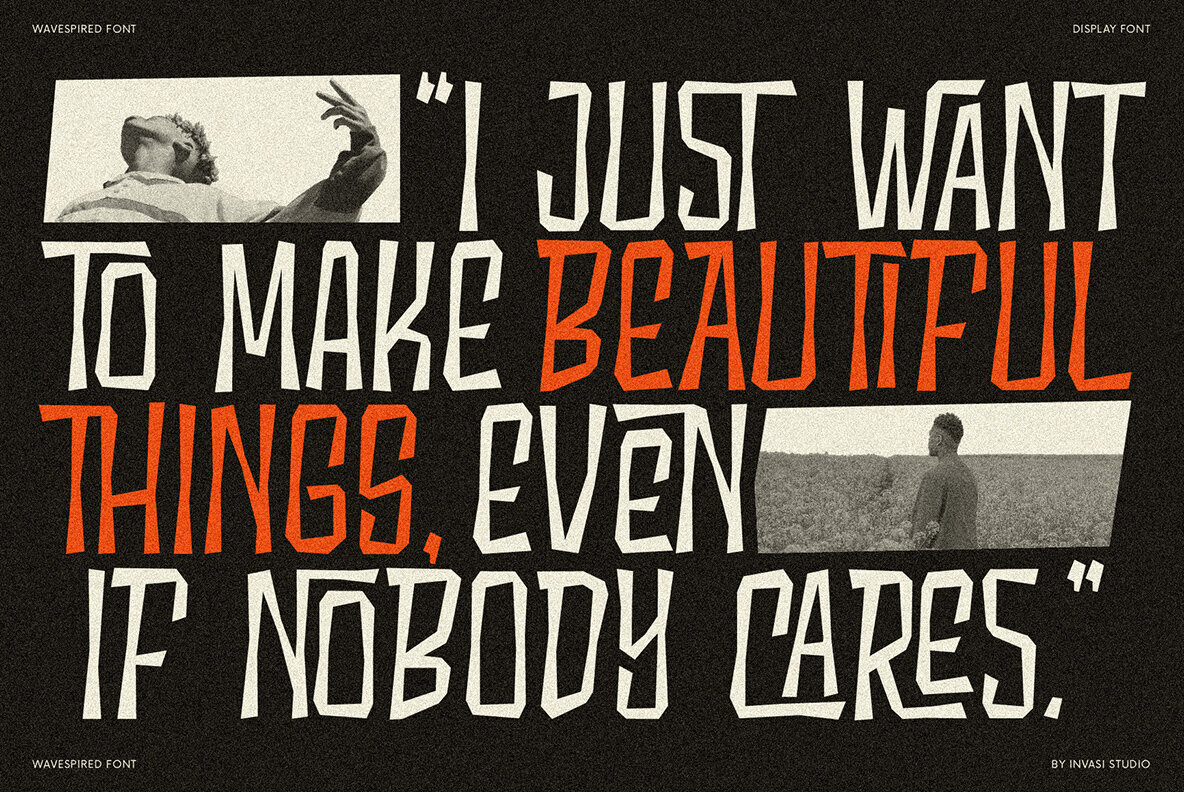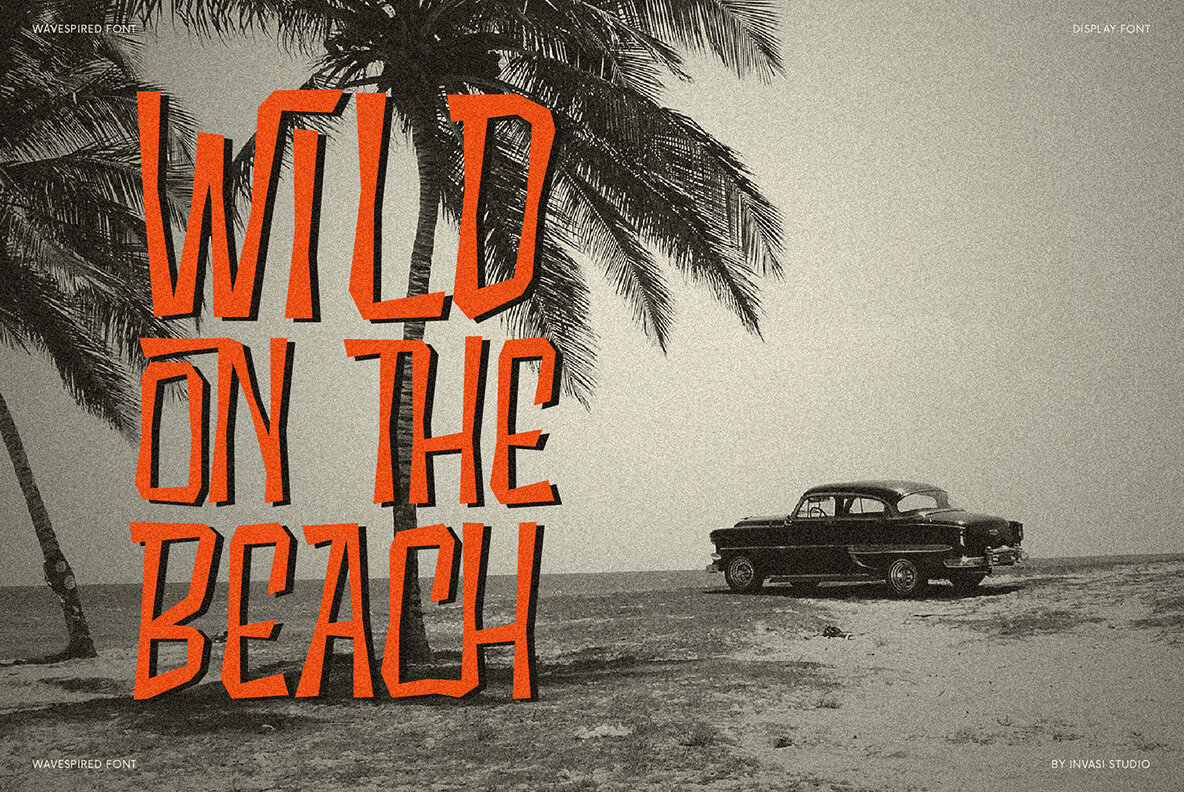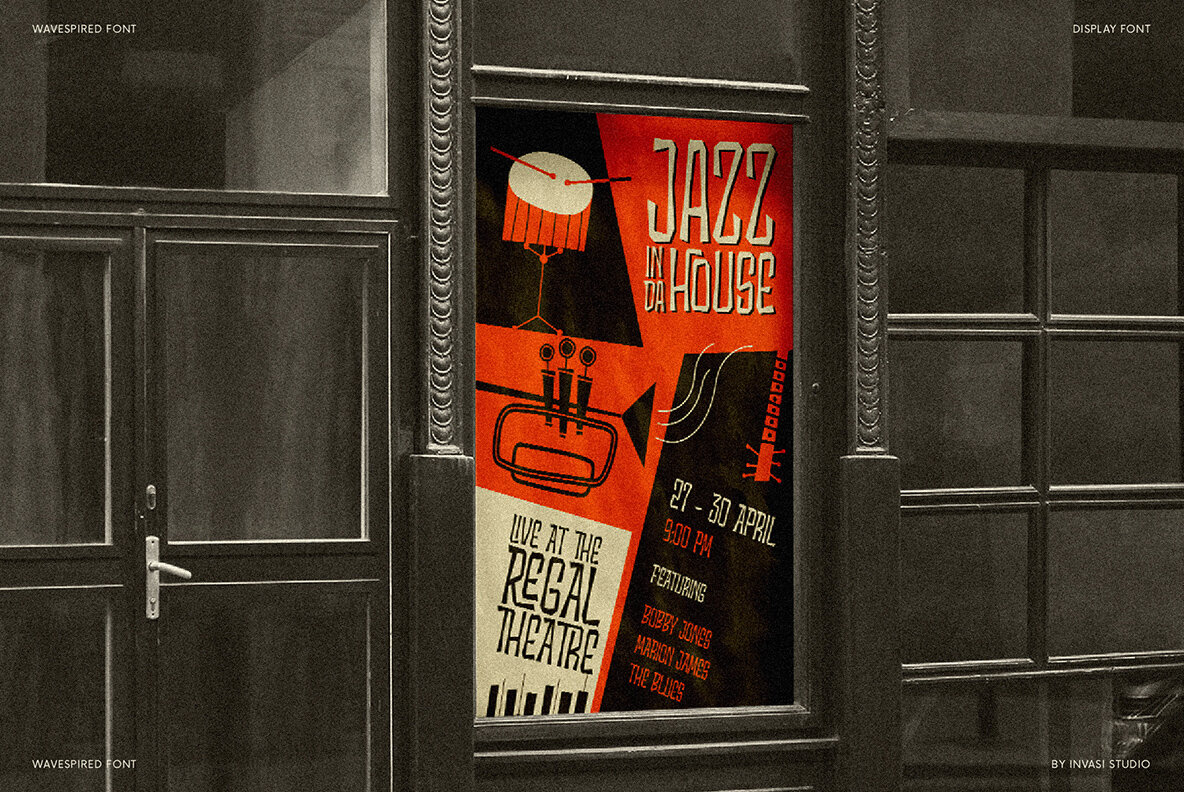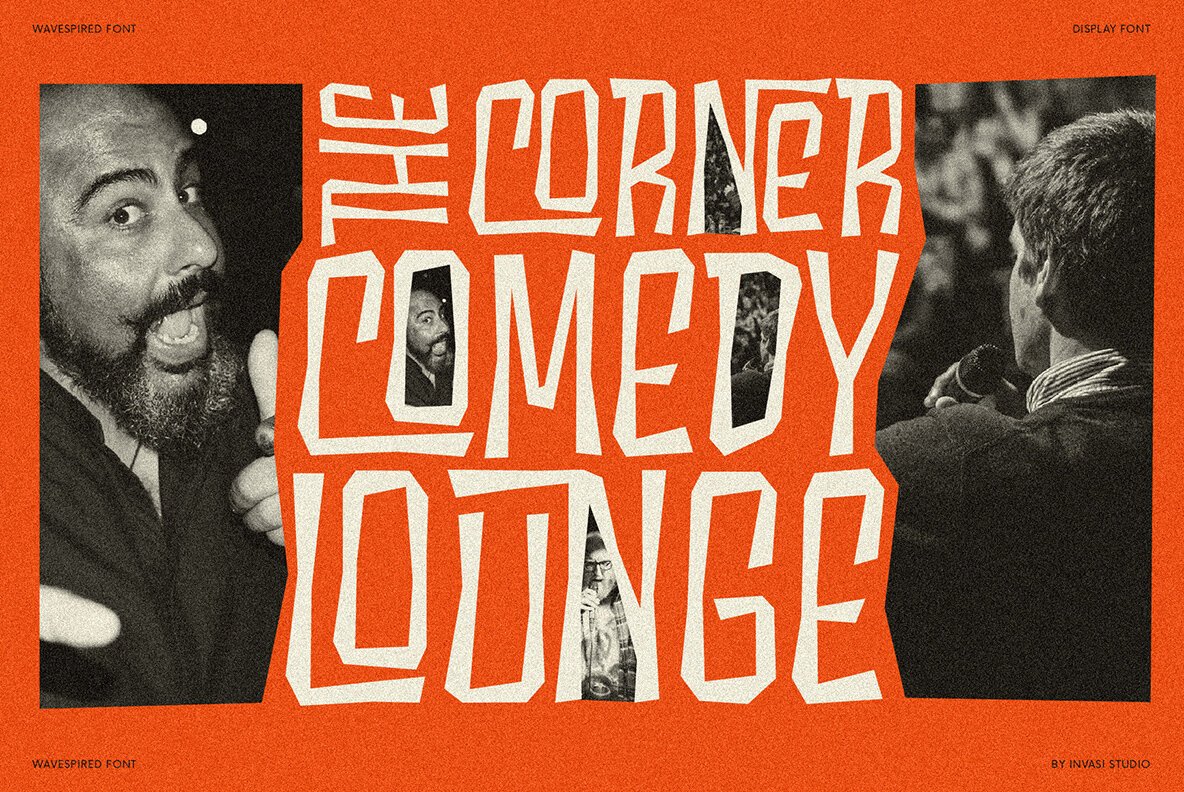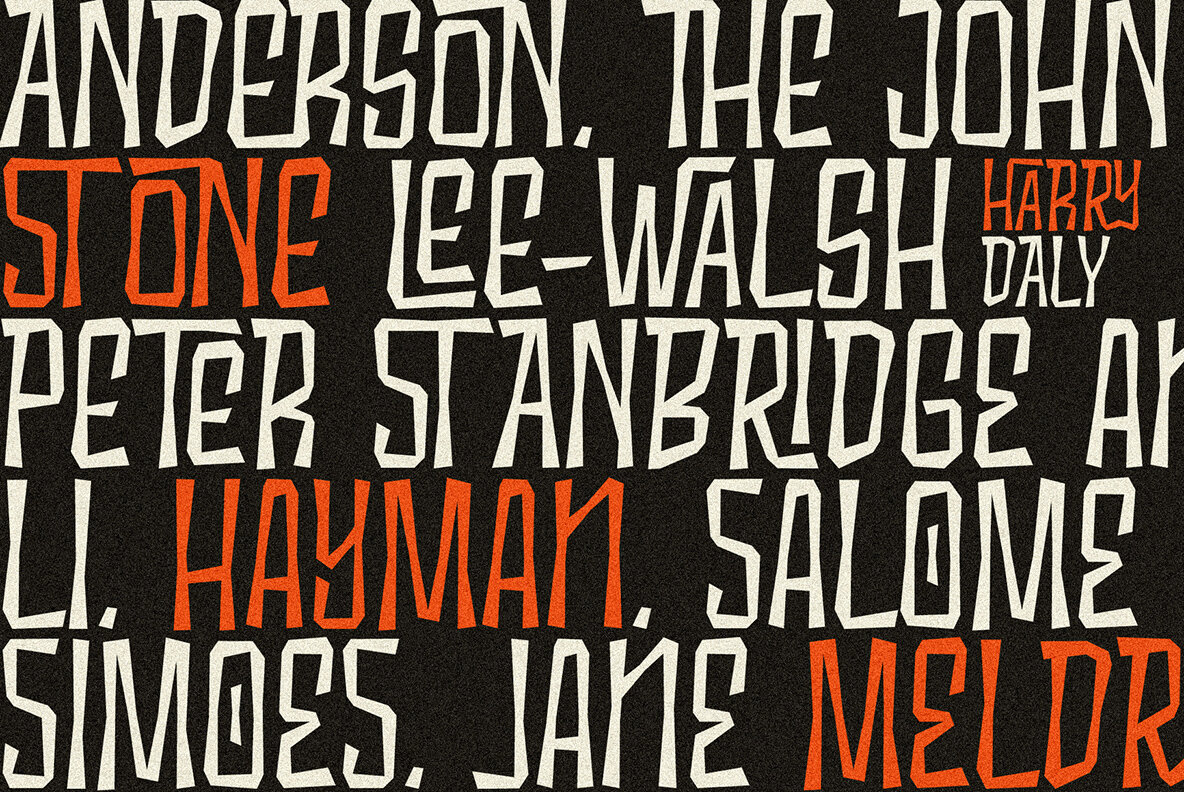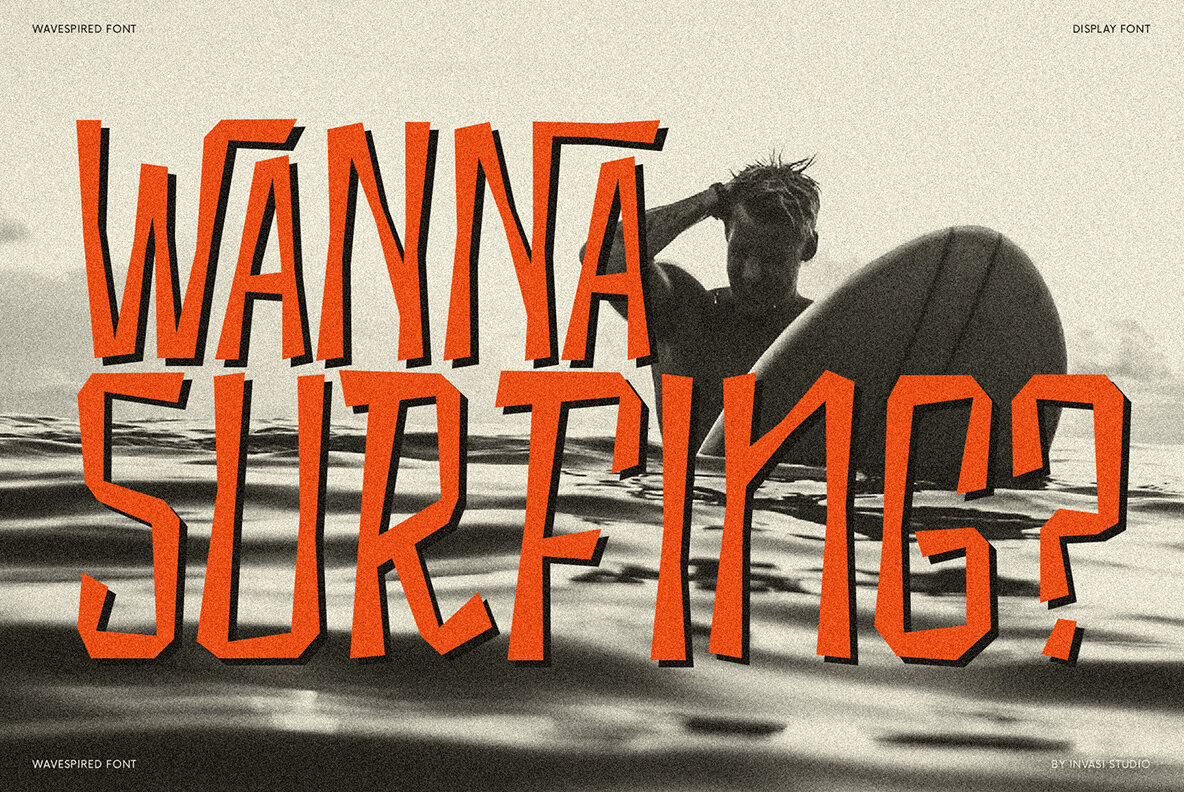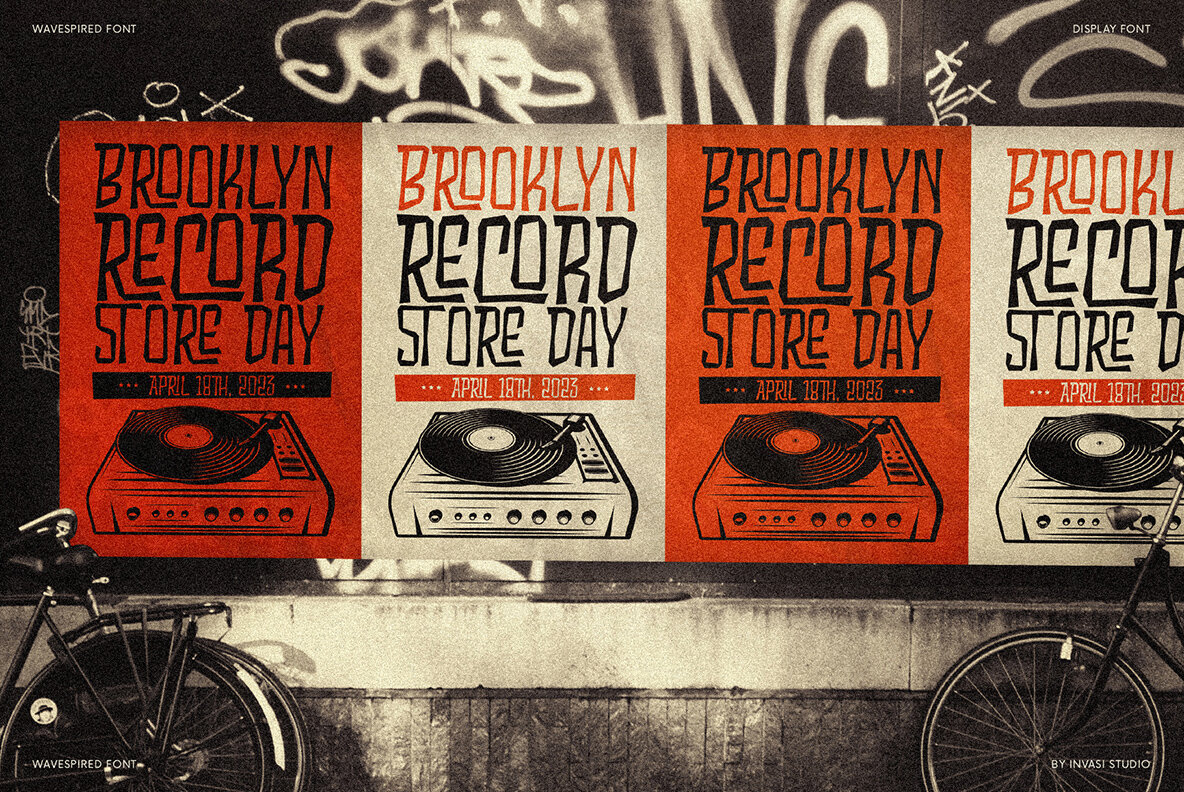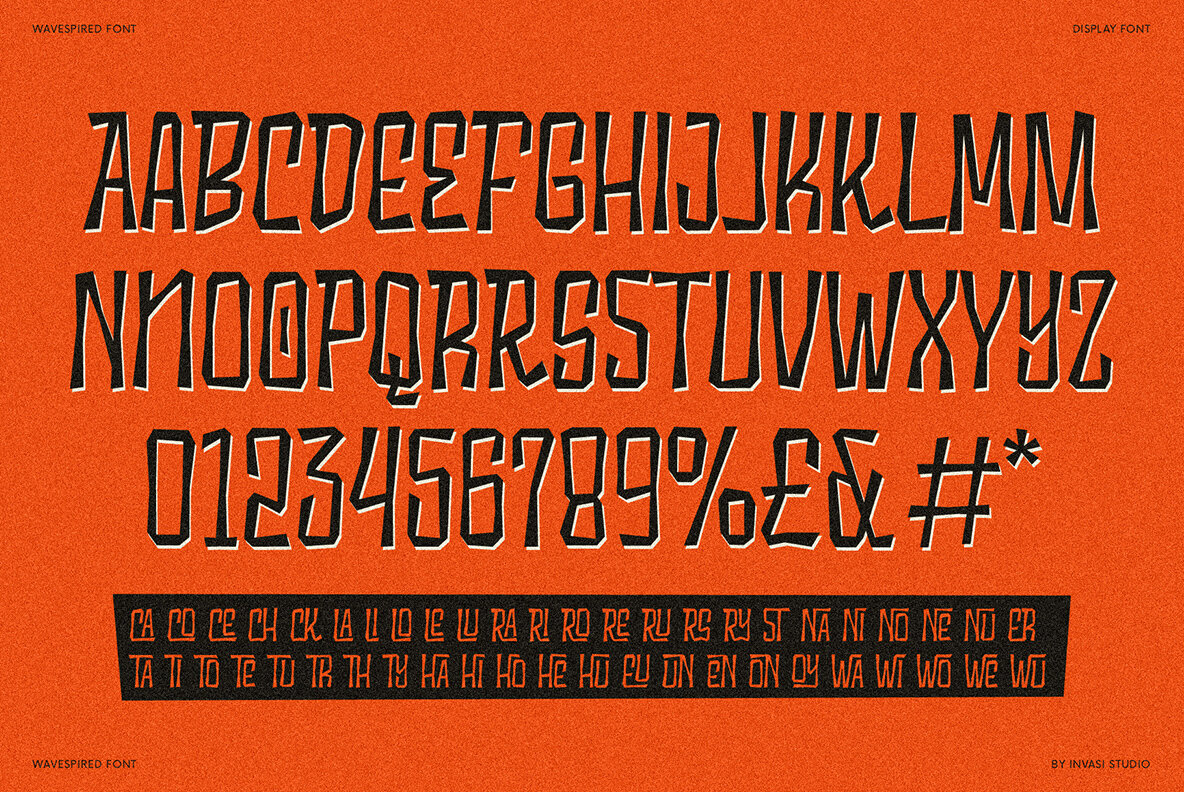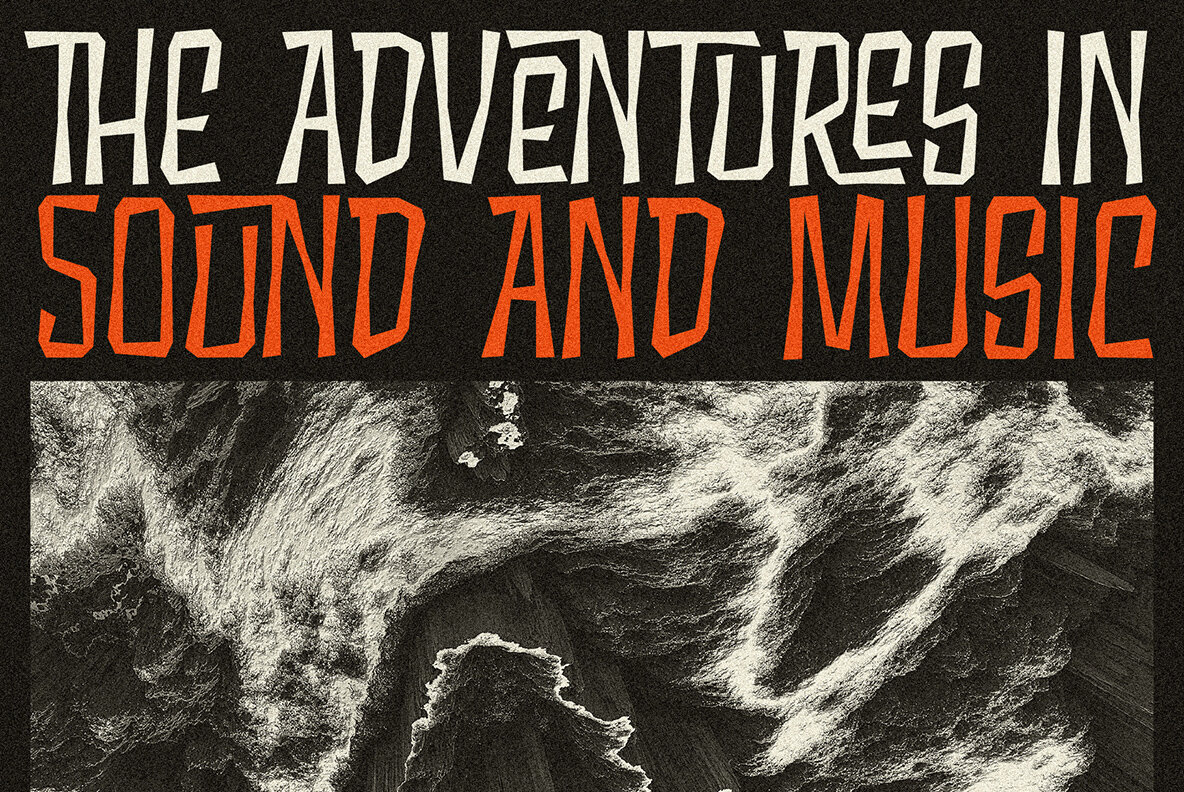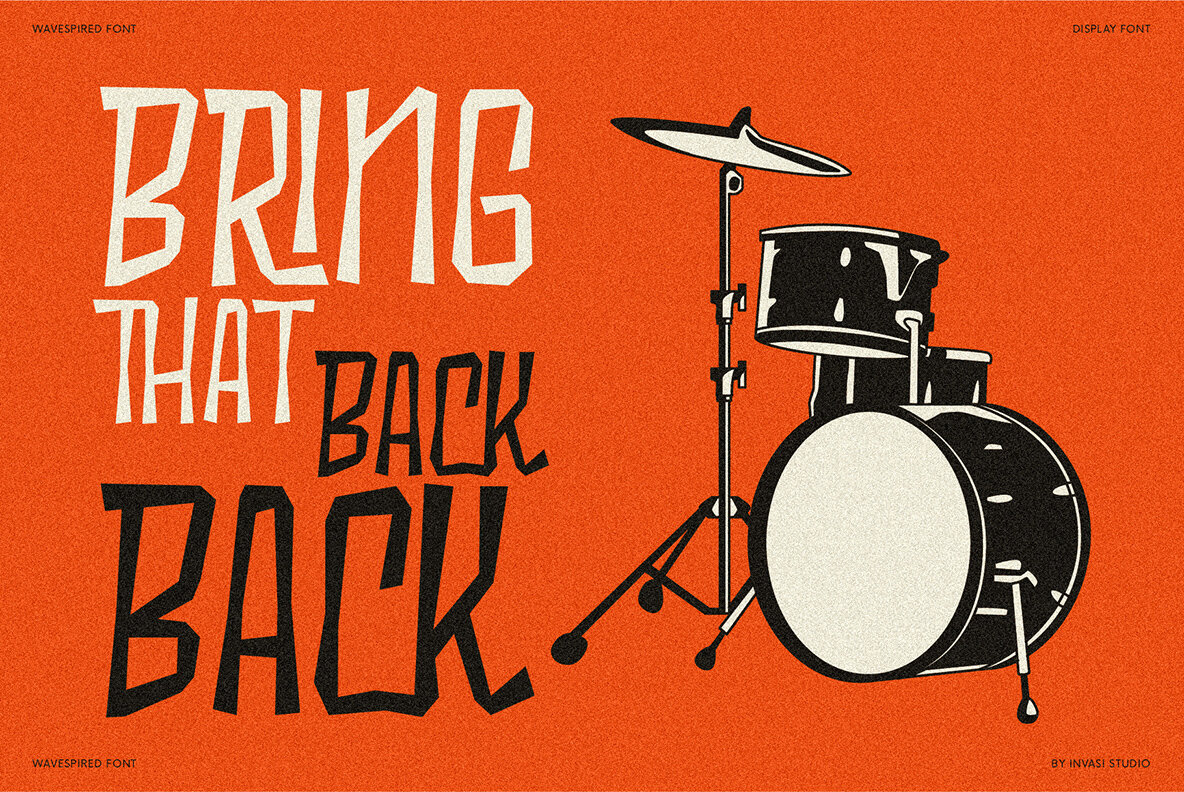
Wavespired Font
Wavespired Regular
Wavespired is a unique font that combines the playful and jazzy lettering of the 1950s cartoon modern style with a modern and sleek design. This font is perfect for creating eye-catching logos and headings that will stand out in any design project. The font is influenced by the retro vibes of the fifties, but with a fresh and modern twist that makes it ideal for today's design needs. The font is legible and easy to read, making it perfect for headlines, titles, and other design elements that need to be easily understood. The font is perfect for any project that requires a fun, retro-inspired design with a modern twist.